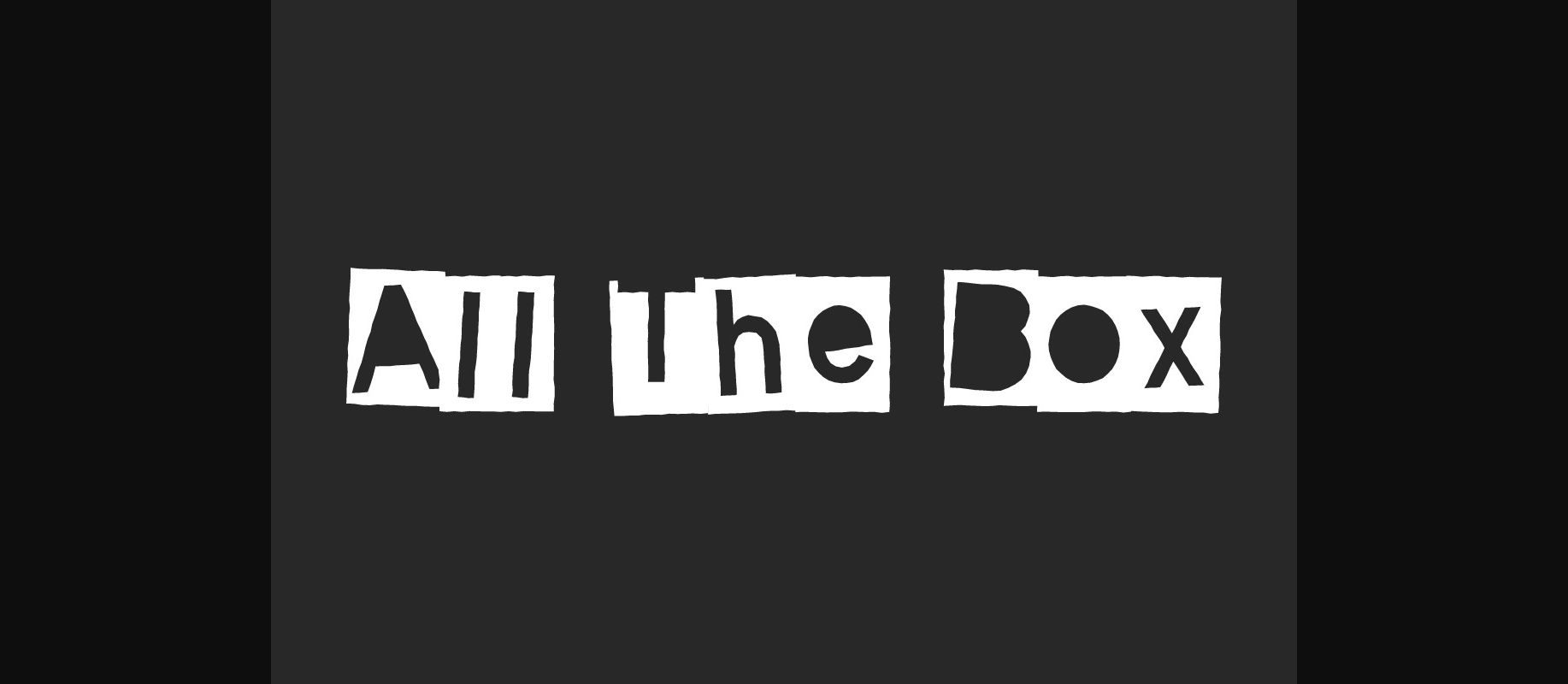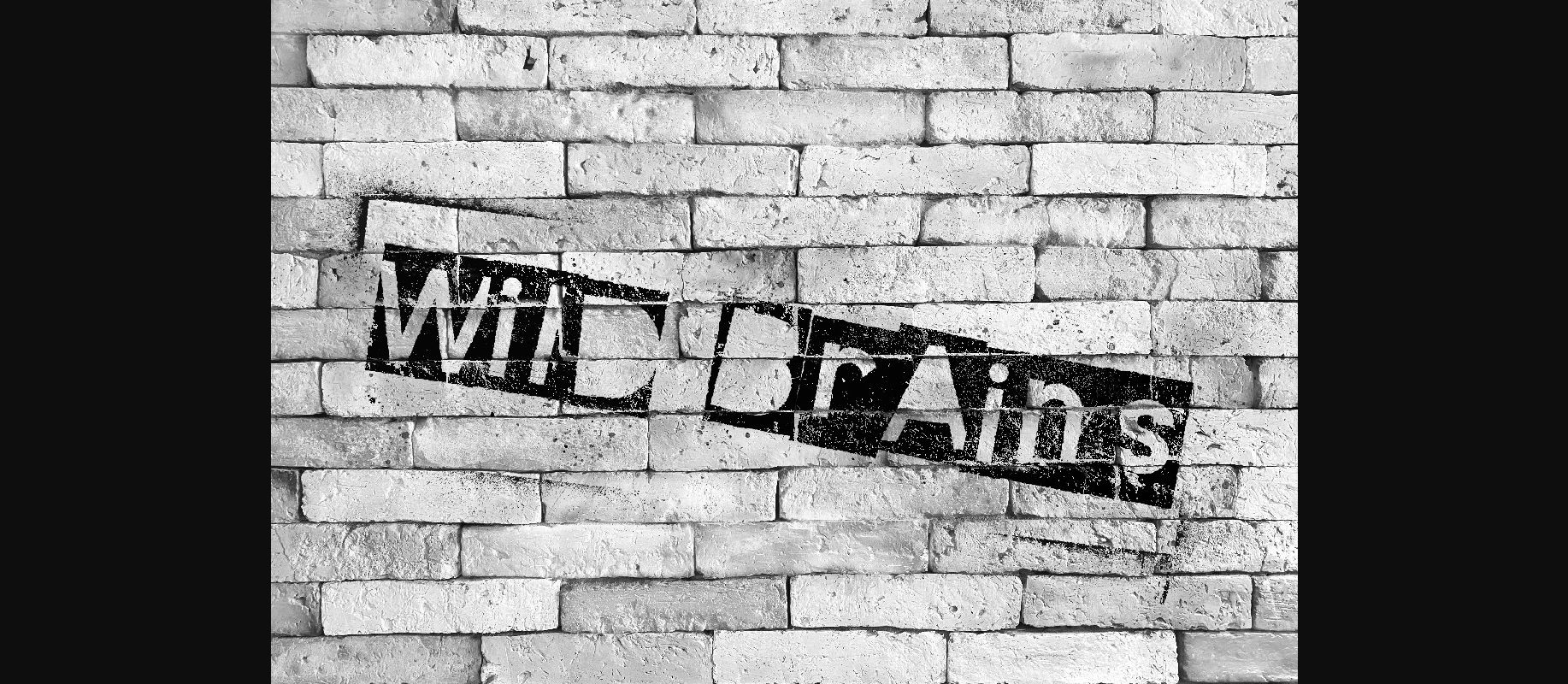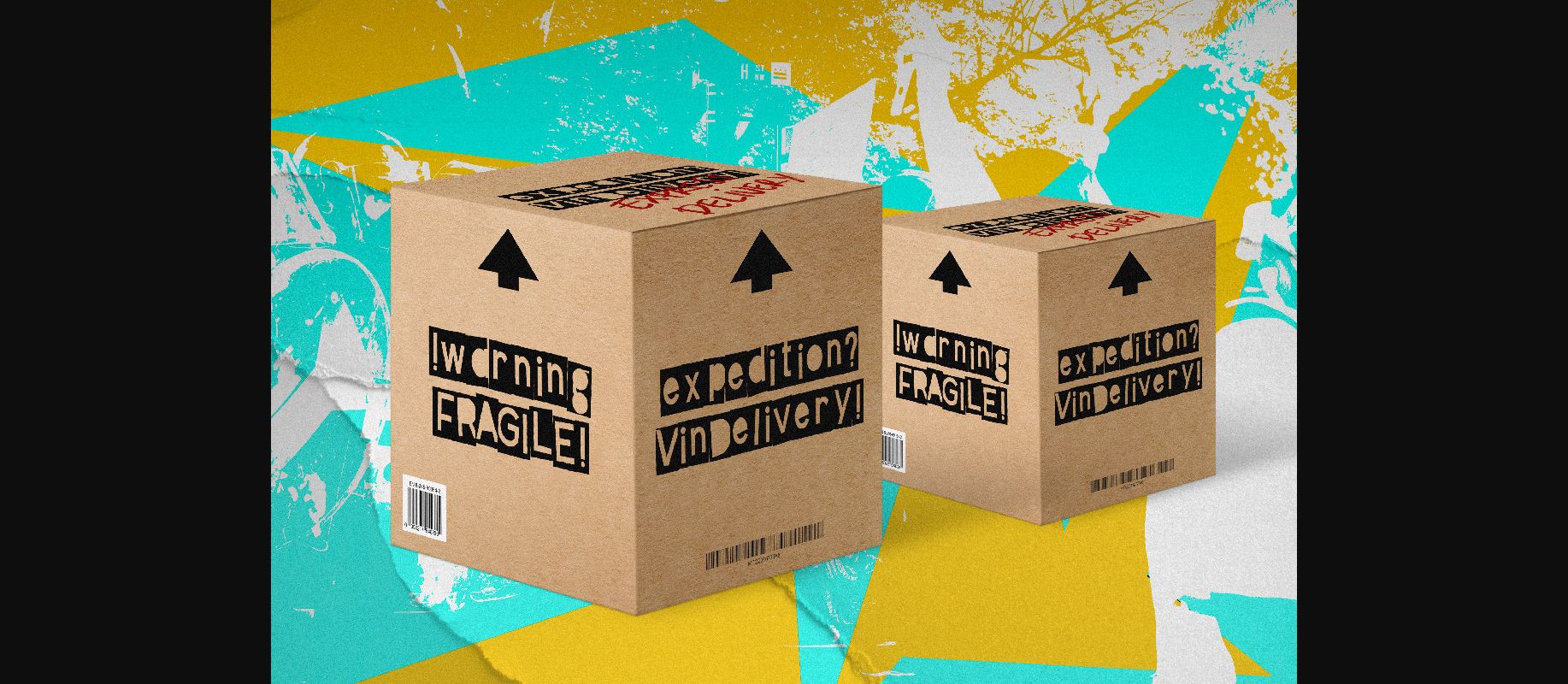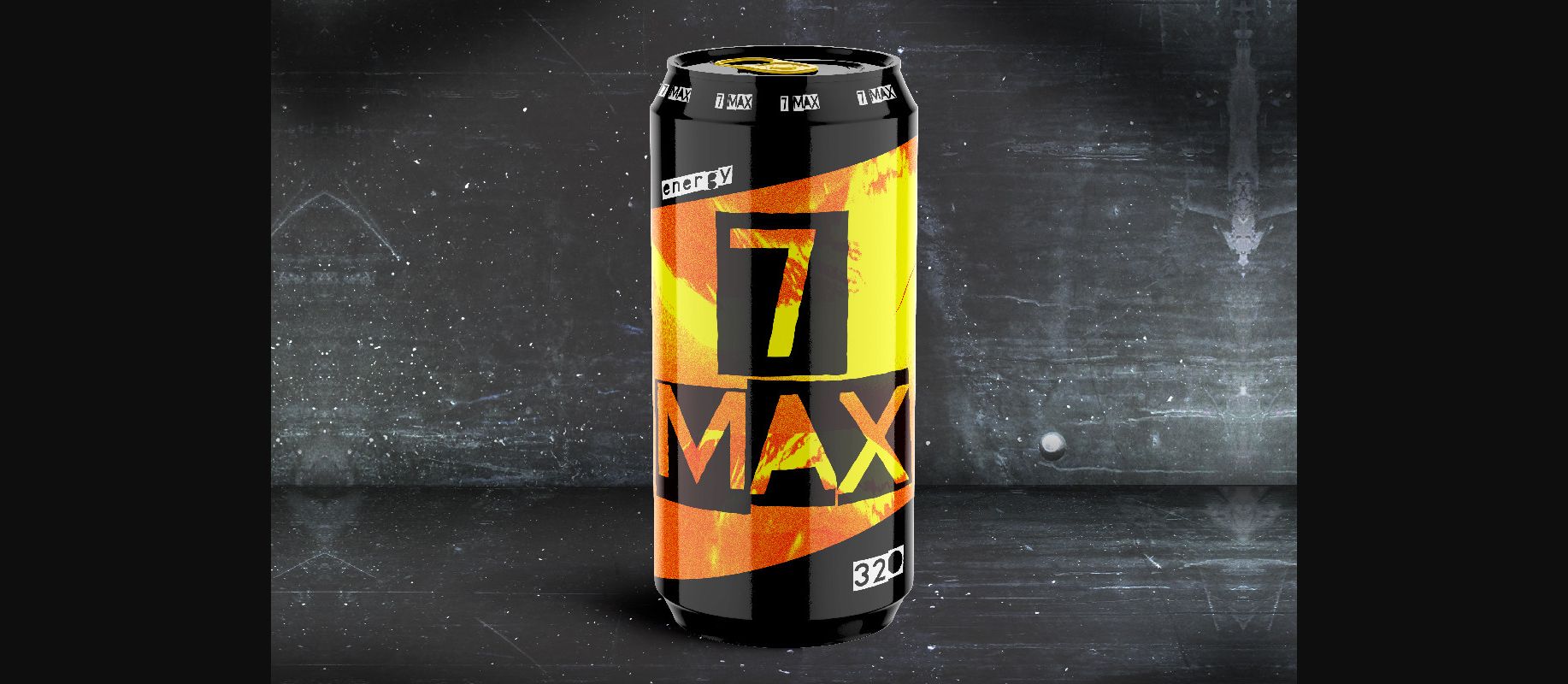
About All the Box Font
All The Box Font is a fun display font with a magazine scrapbook style. This font was originally inspired by retro vintage music vibes that have a unique style that keeps all the letters in an irregular box and still easy to read. Use this font to instantly make your designs stand out.